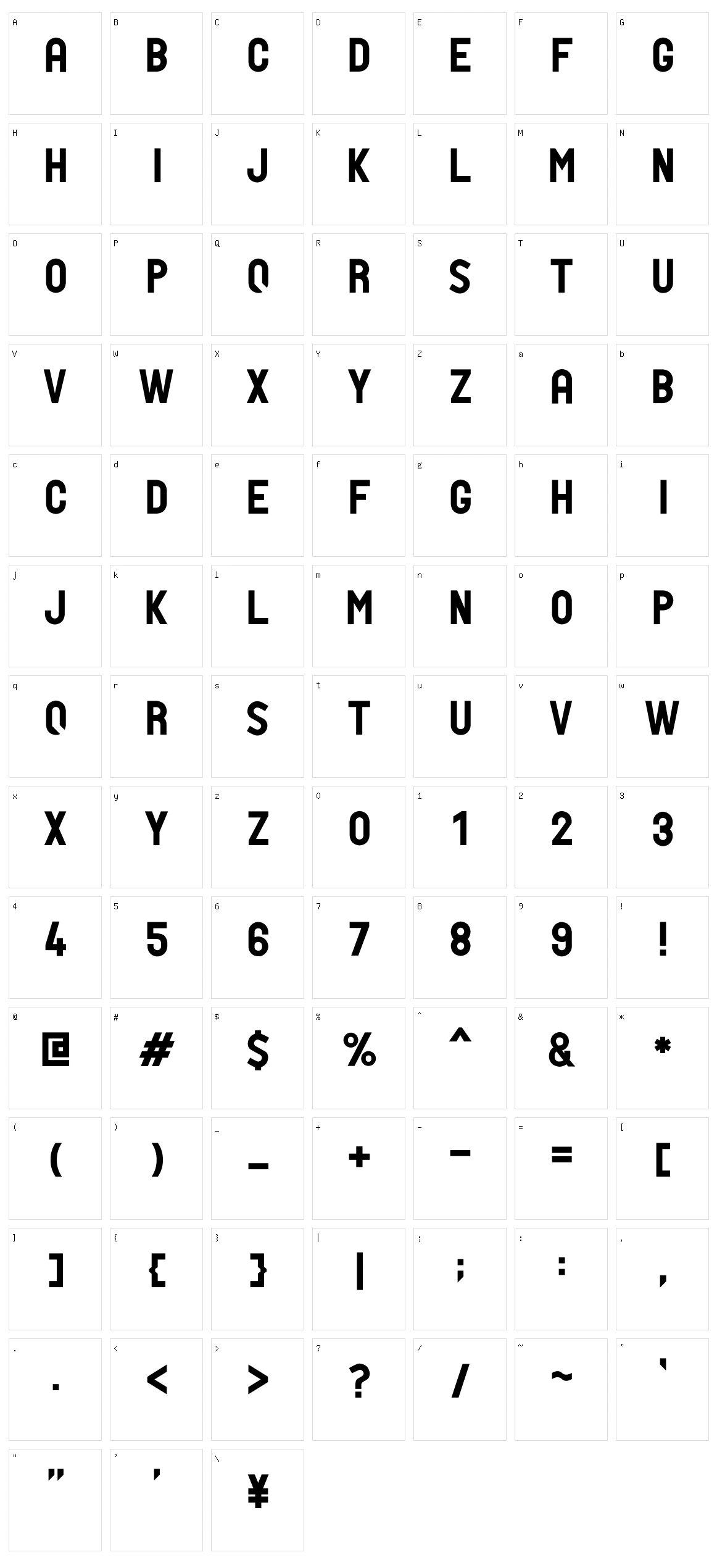
The free font PTF Nordic Std is carefully designed by prismtone(designer), showcasing a thoughtful balance of creativity and usability and falls under the Sans serif font style. When you download the ZIP file, it contains only 6.29 KB of font files, making it lightweight and quick to download. Please review the license details below to understand permitted usage and distribution rights. If license information is not available, we recommend using this font for personal projects only or contacting the author directly for commercial usage permissions.